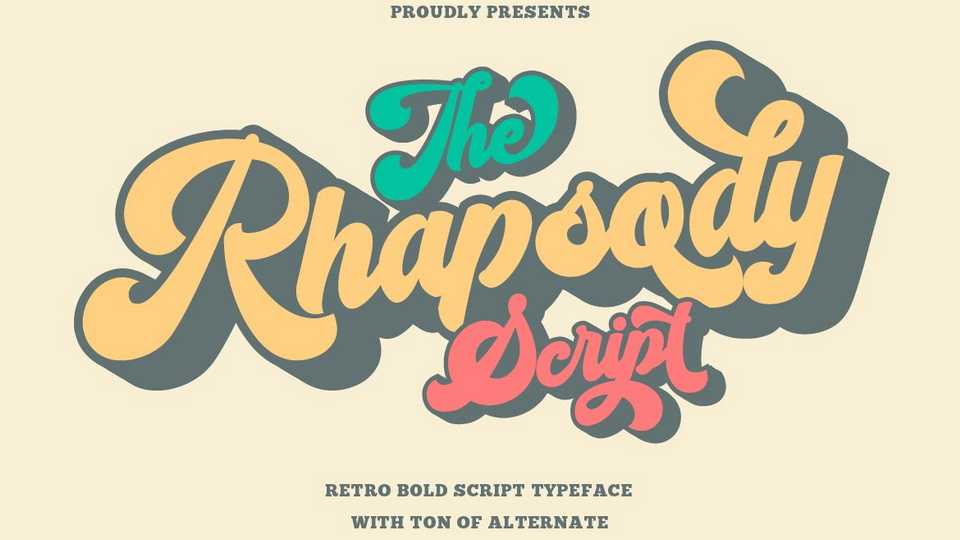
Rhapsody Retro Font › Fontesk
Download Rhapsody font, a bold script typeface inspired by the vintage design from 70-ish. Rhapsody is really perfect typeface for you who needs a vintage design for logotype, t-shirt, vintage badge, retro quotes branding, packaging, quote etc.